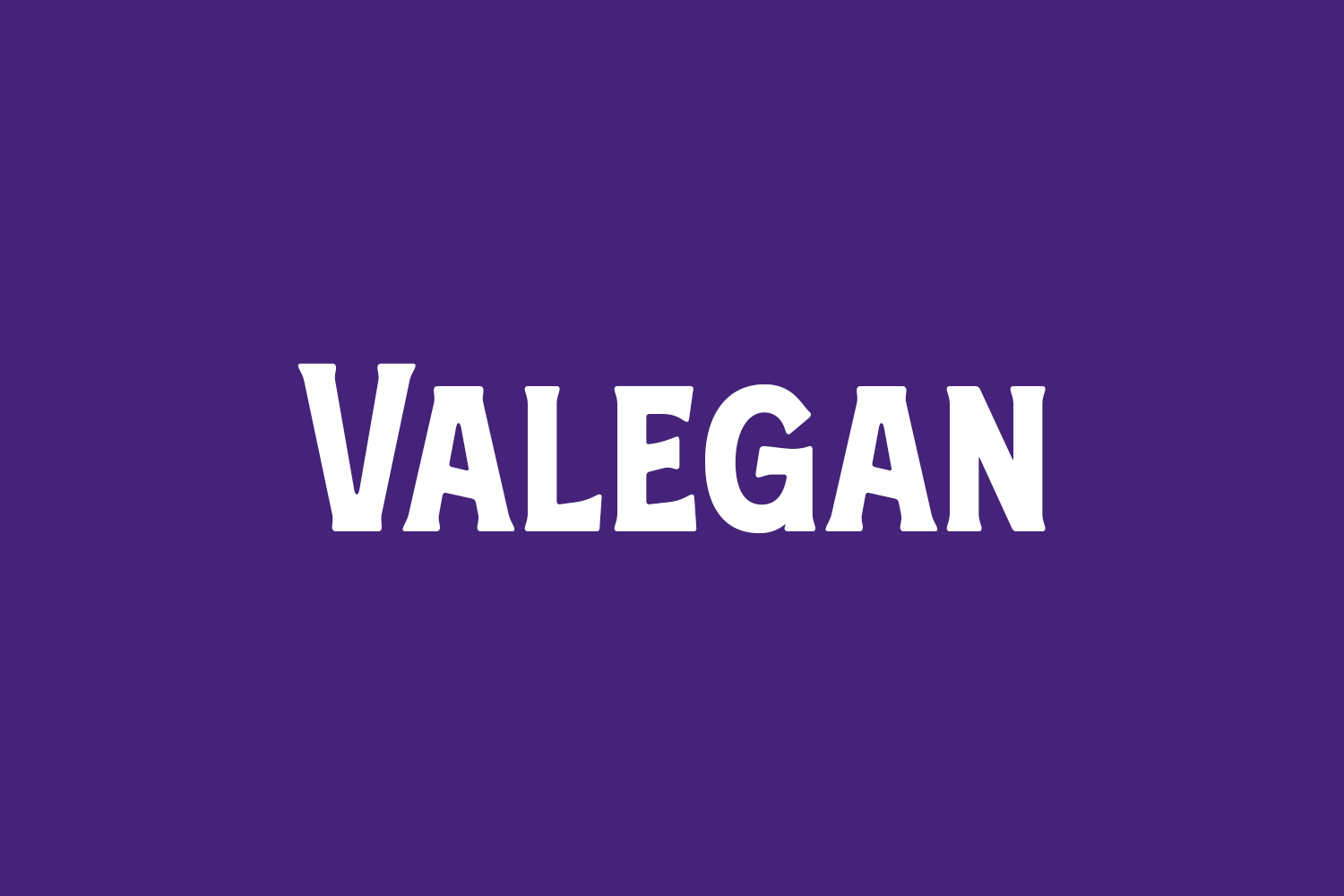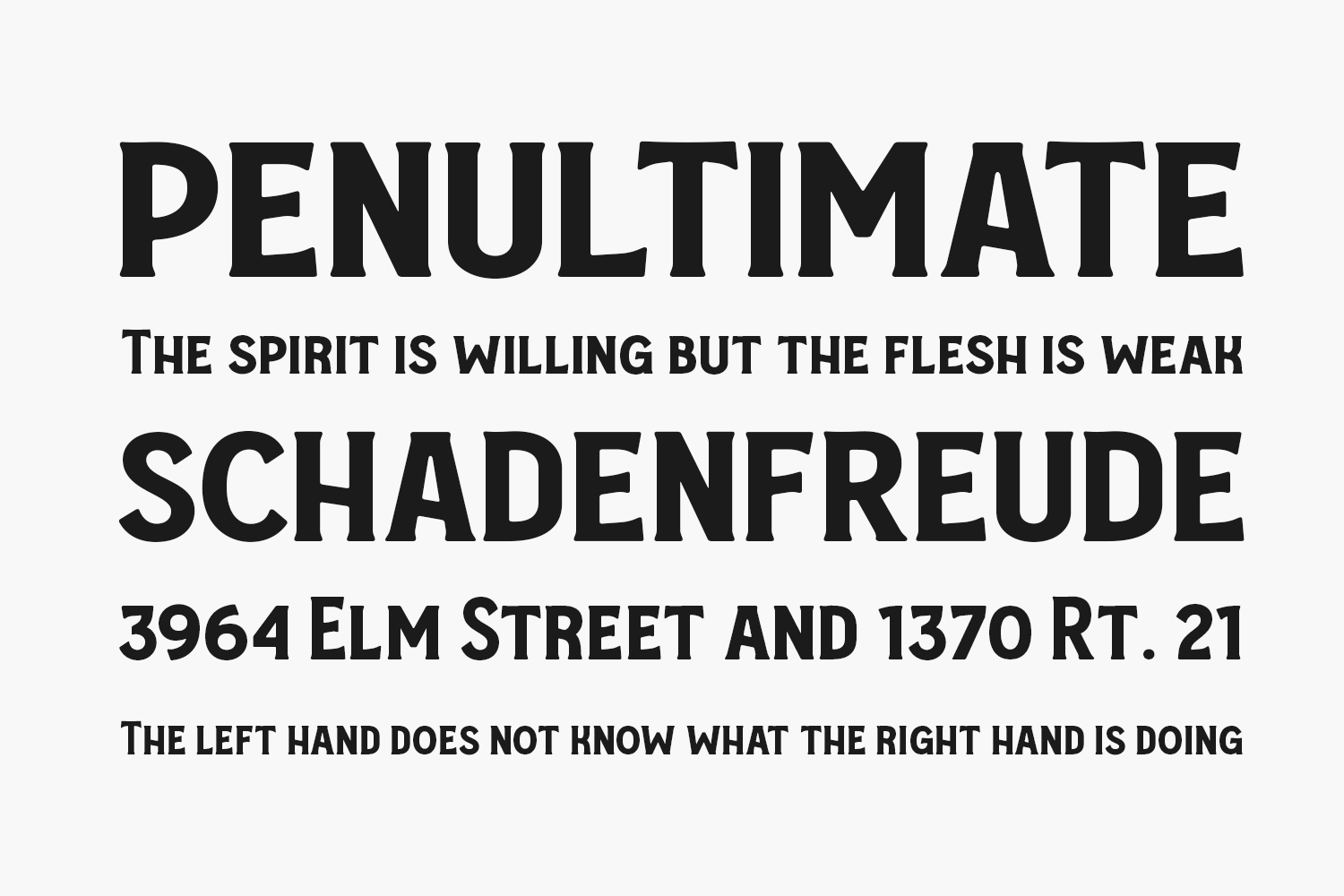
Valegan Free Font is an exceptional display font that exudes a timeless vintage charm. With its captivating look and nostalgic feel, this font is tailor-made for a wide range of applications. Whether you’re creating logos, headlines, signage, invitations, labels, magazines, books, greeting or wedding cards, packaging, fashion designs, make-up branding, stationery, novels, or any form of advertising, Valegan rises to the occasion. Let this versatile font elevate your creative projects and leave a lasting impression on your audience. Valegan Free Font is free for personal use only. Please purchase the full version for commercial use.